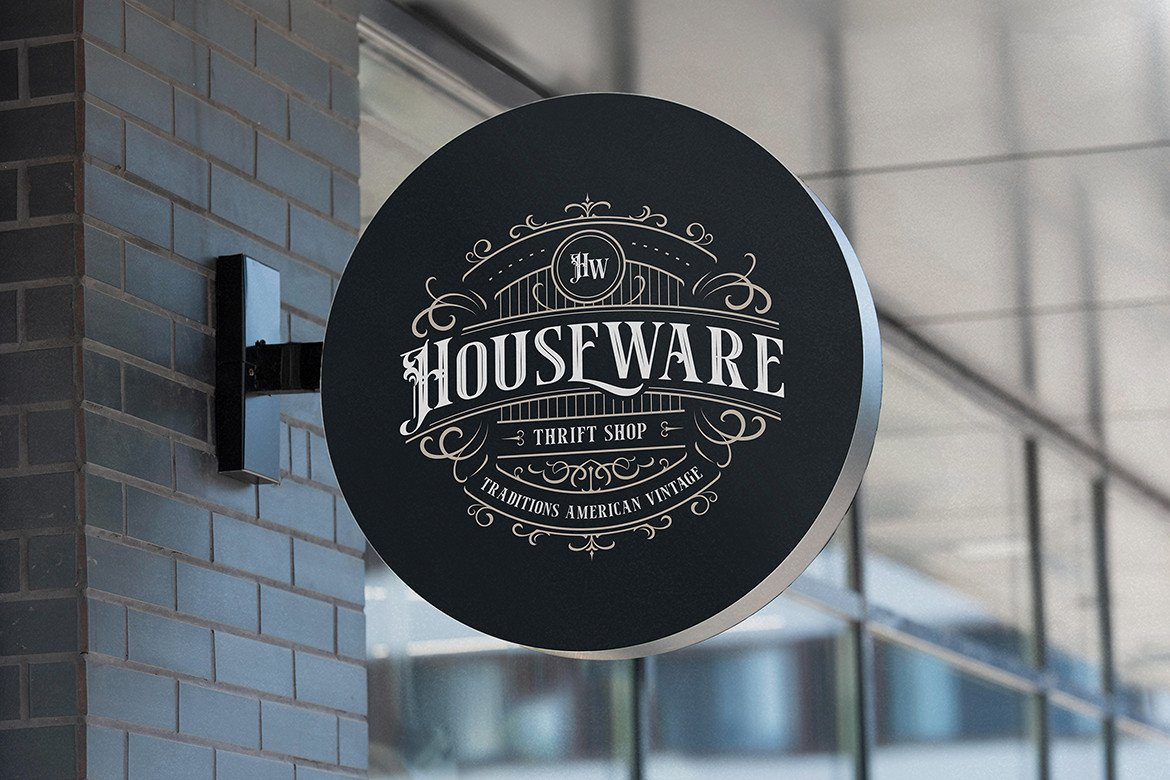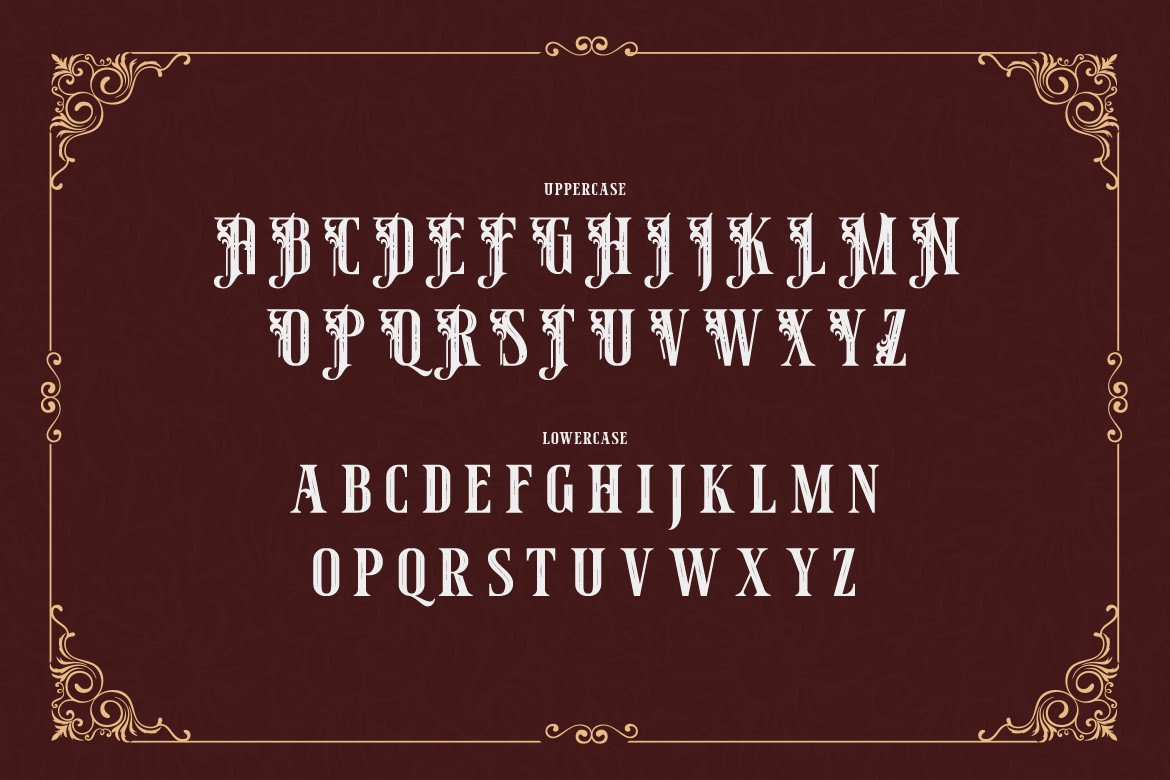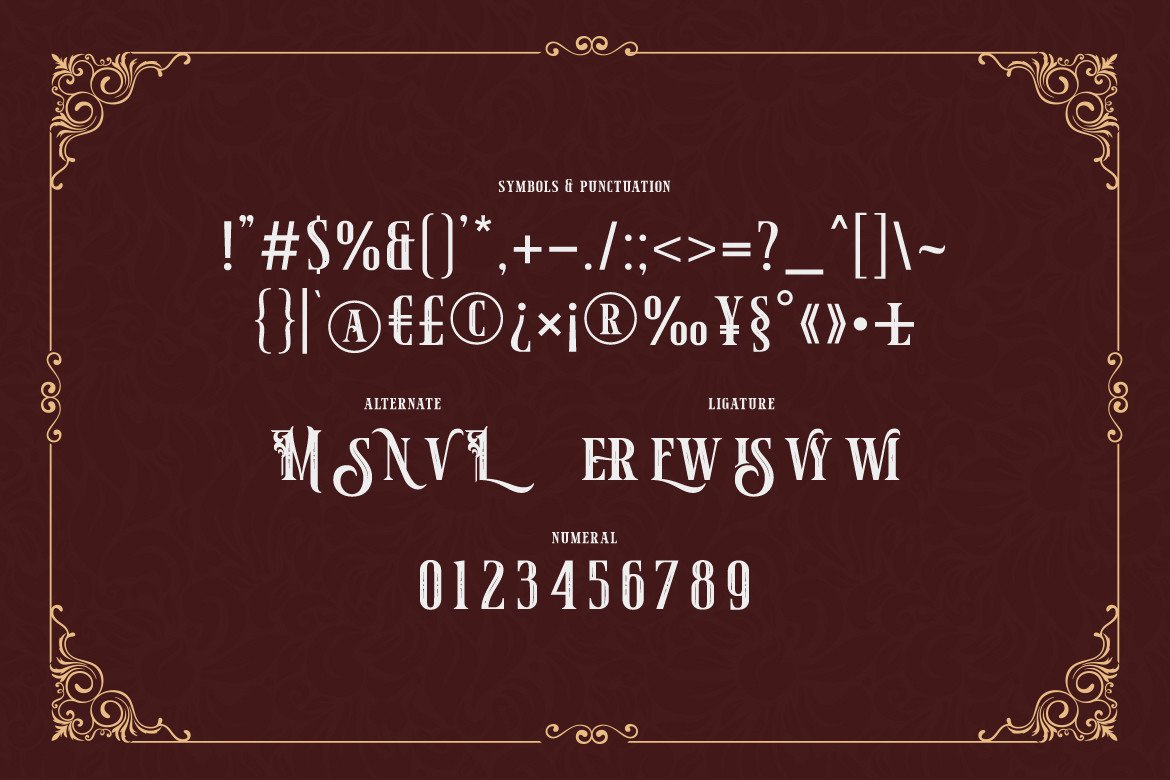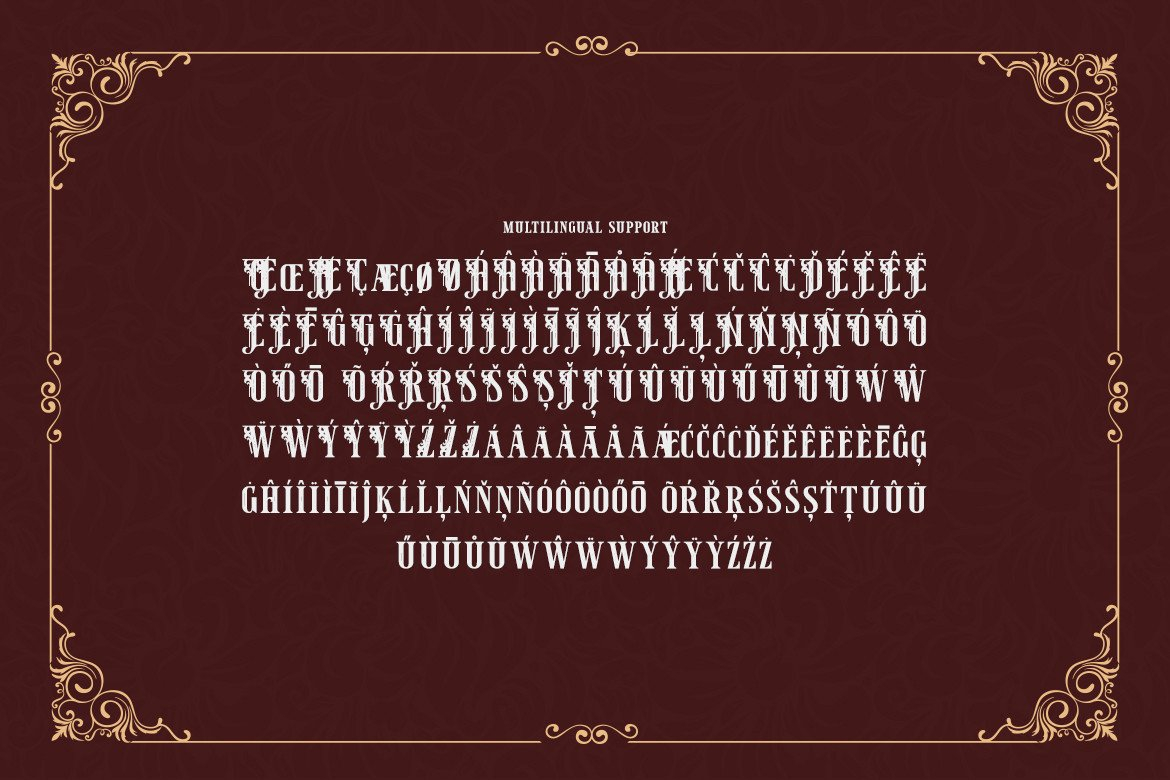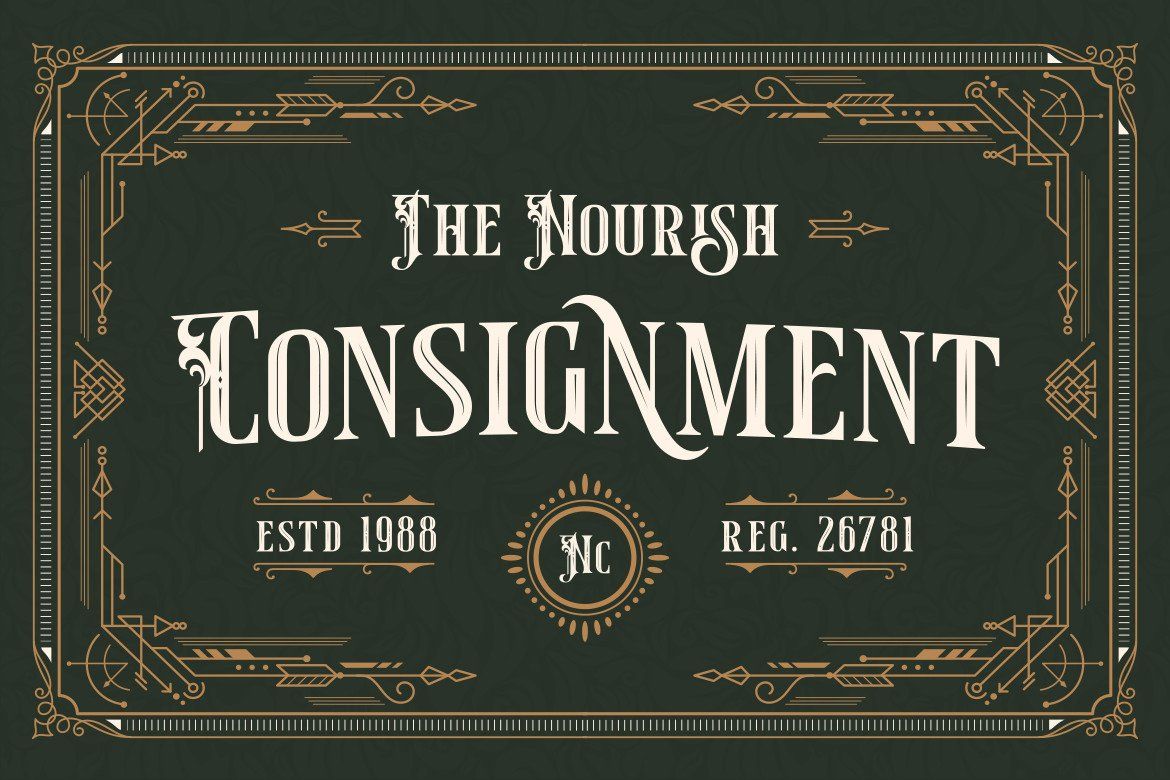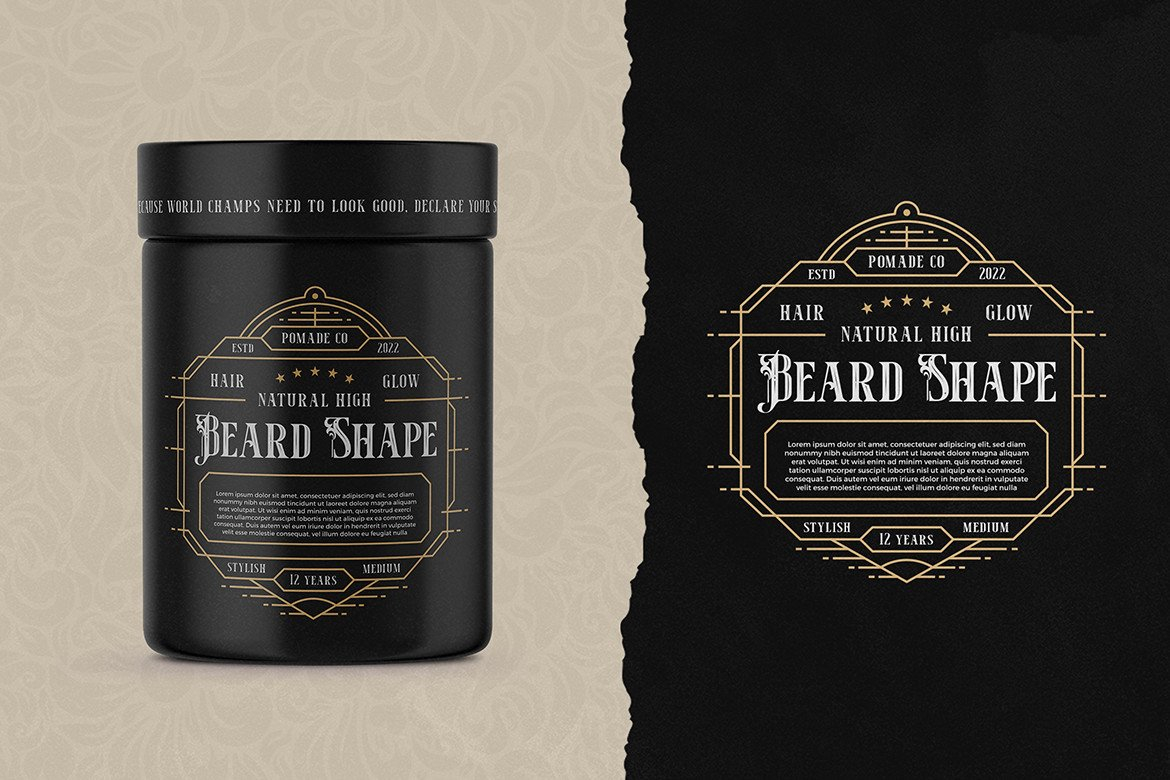
Mervyn Lewis Font
About Mervyn Lewis Font
If you’re looking for a retro and unique font (One which will bring all sorts of happiness to any project) the Mervyn Lewis font is just for you.
It combines a sense of classic, cuteness, elegance and vintage which makes it distinctive enough to give any project life and energy.